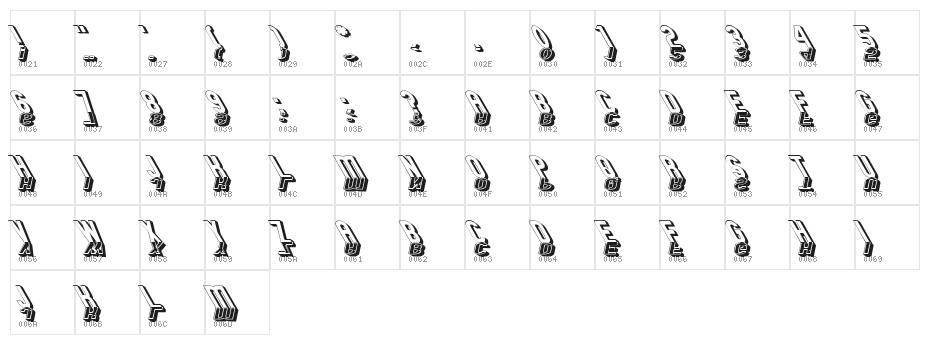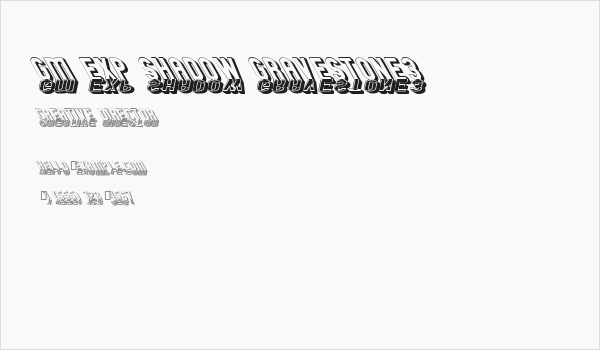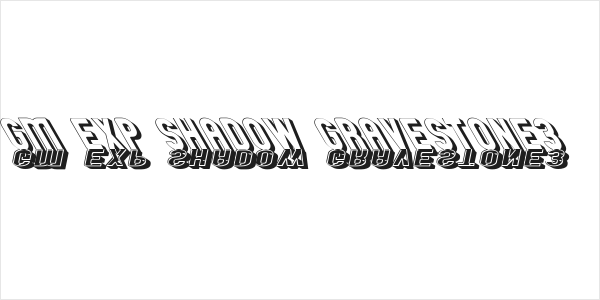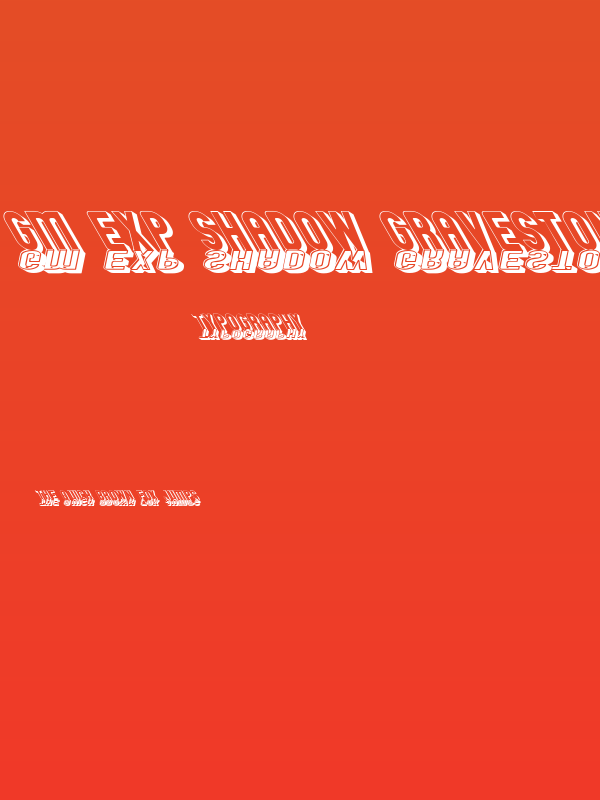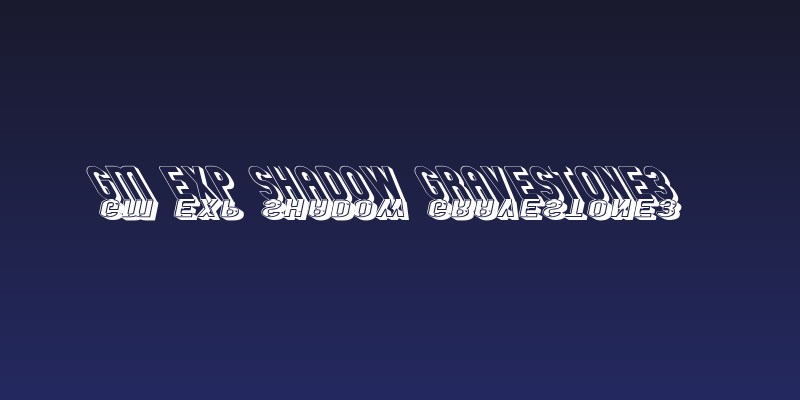
GM Exp Shadow Gravestone3 Font
GM Exp Shadow Gravestone3 Description
This font features a bold, three-dimensional shadow effect that gives it a striking and impactful appearance. The characters are uppercase and lowercase letters, along with numbers and a selection of special characters. Each letter is designed with a thick outline and a shadow that creates a sense of depth and dimension. The style is reminiscent of vintage signage, with a modern twist that makes it suitable for eye-catching designs. The boldness and shadow effect make it ideal for projects that require a strong visual impact.
| Overall Style | Vintage, Modern |
| Proposed Projects | Ideal for poster designs, logos, headlines, and any project requiring a bold, attention-grabbing font. |